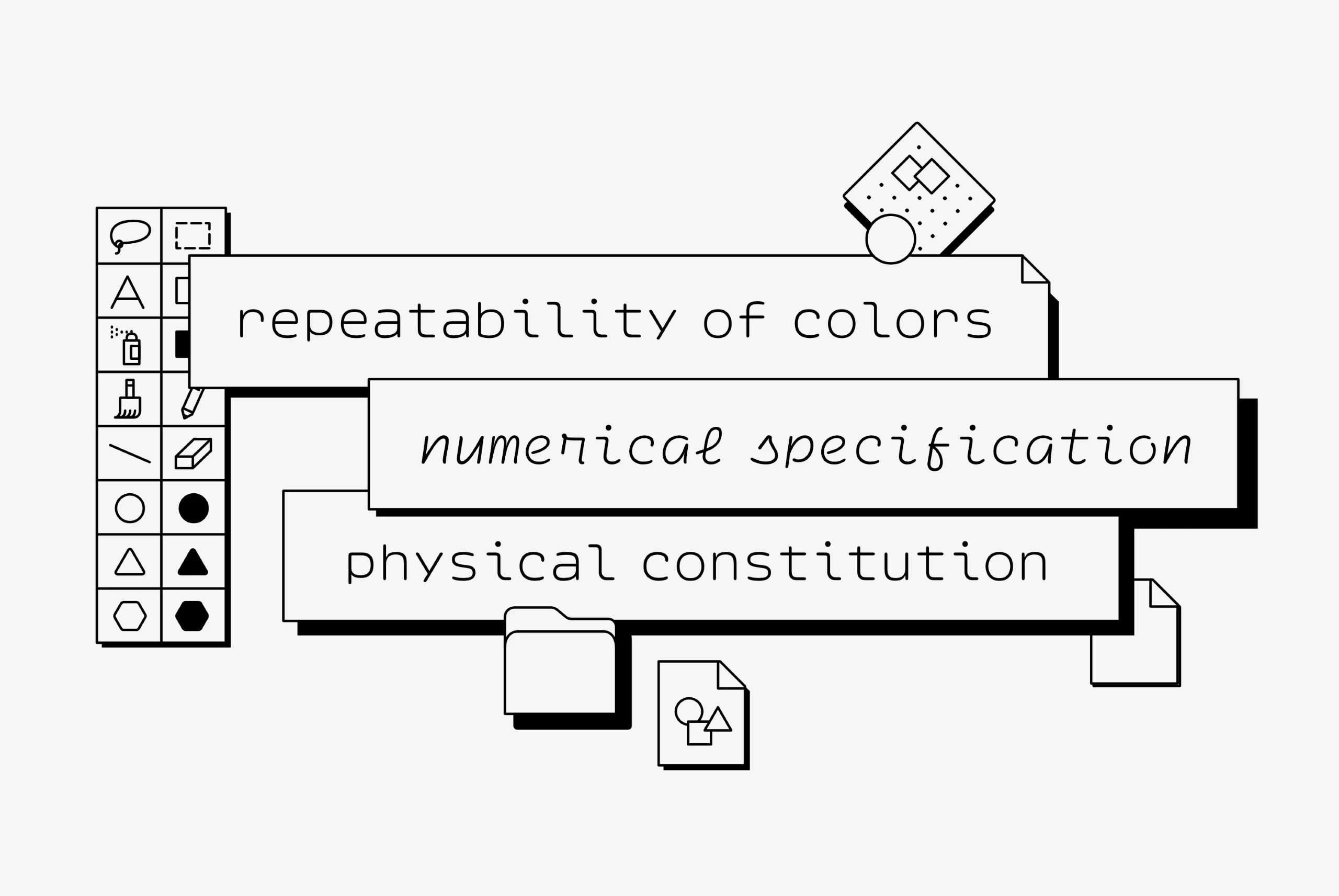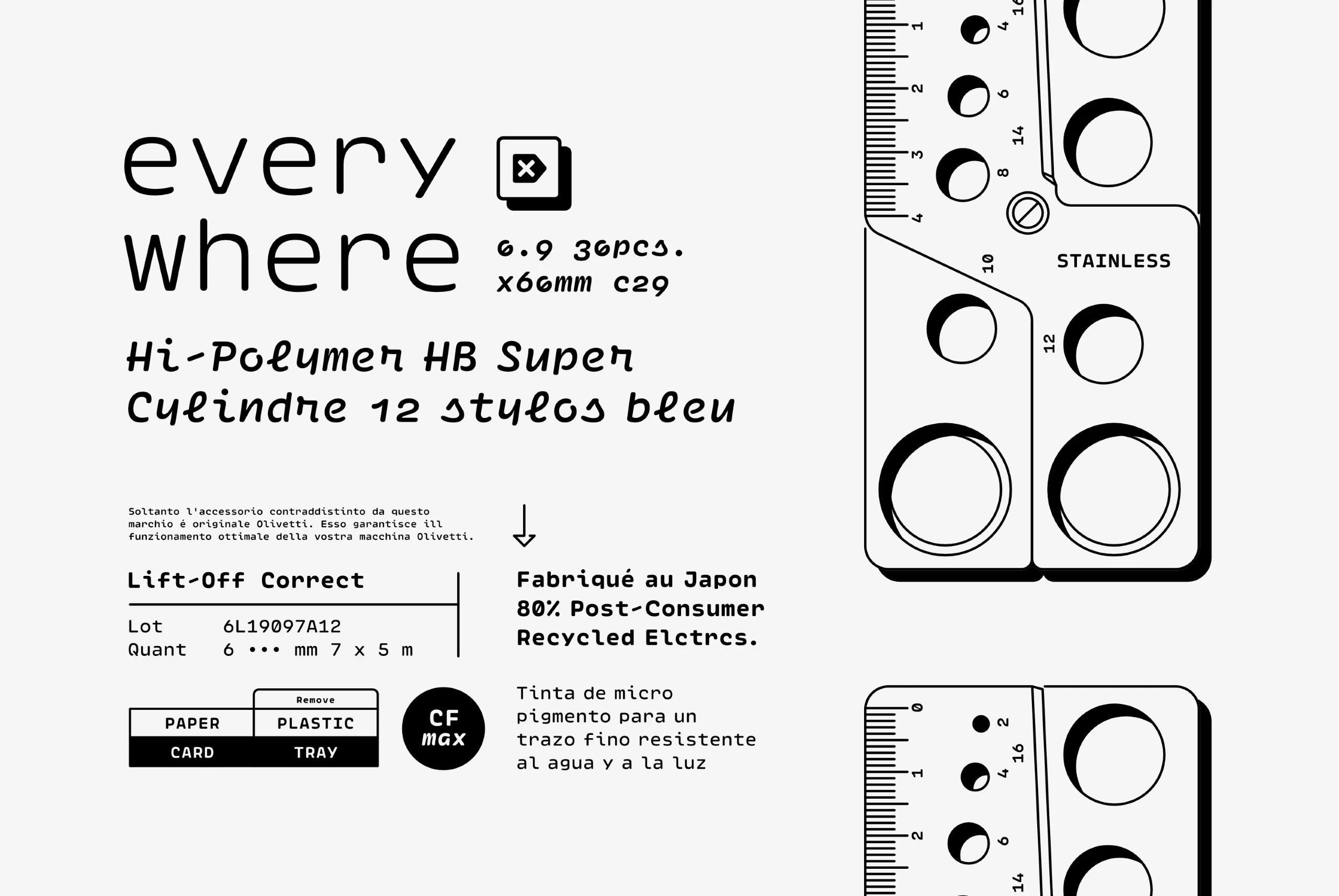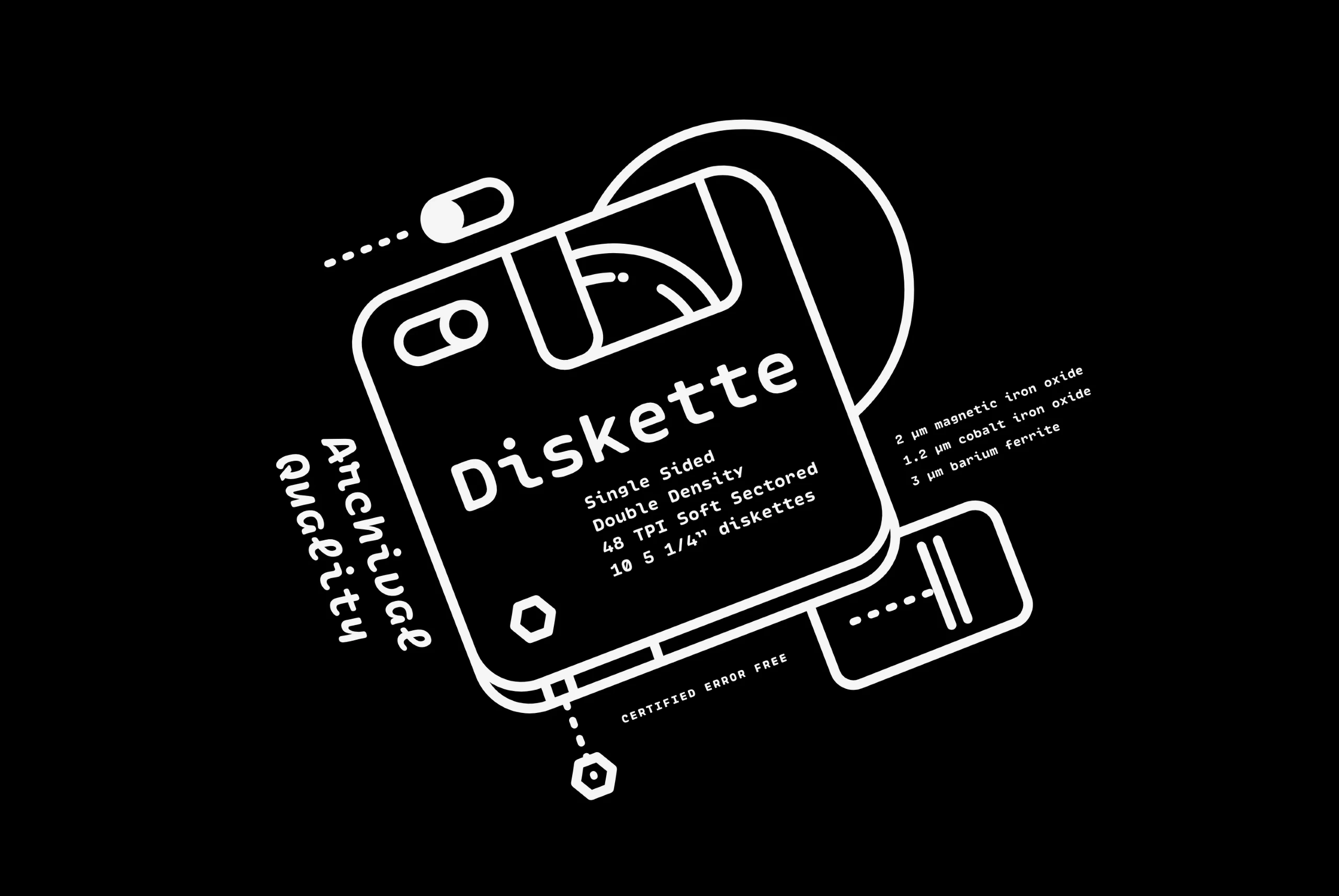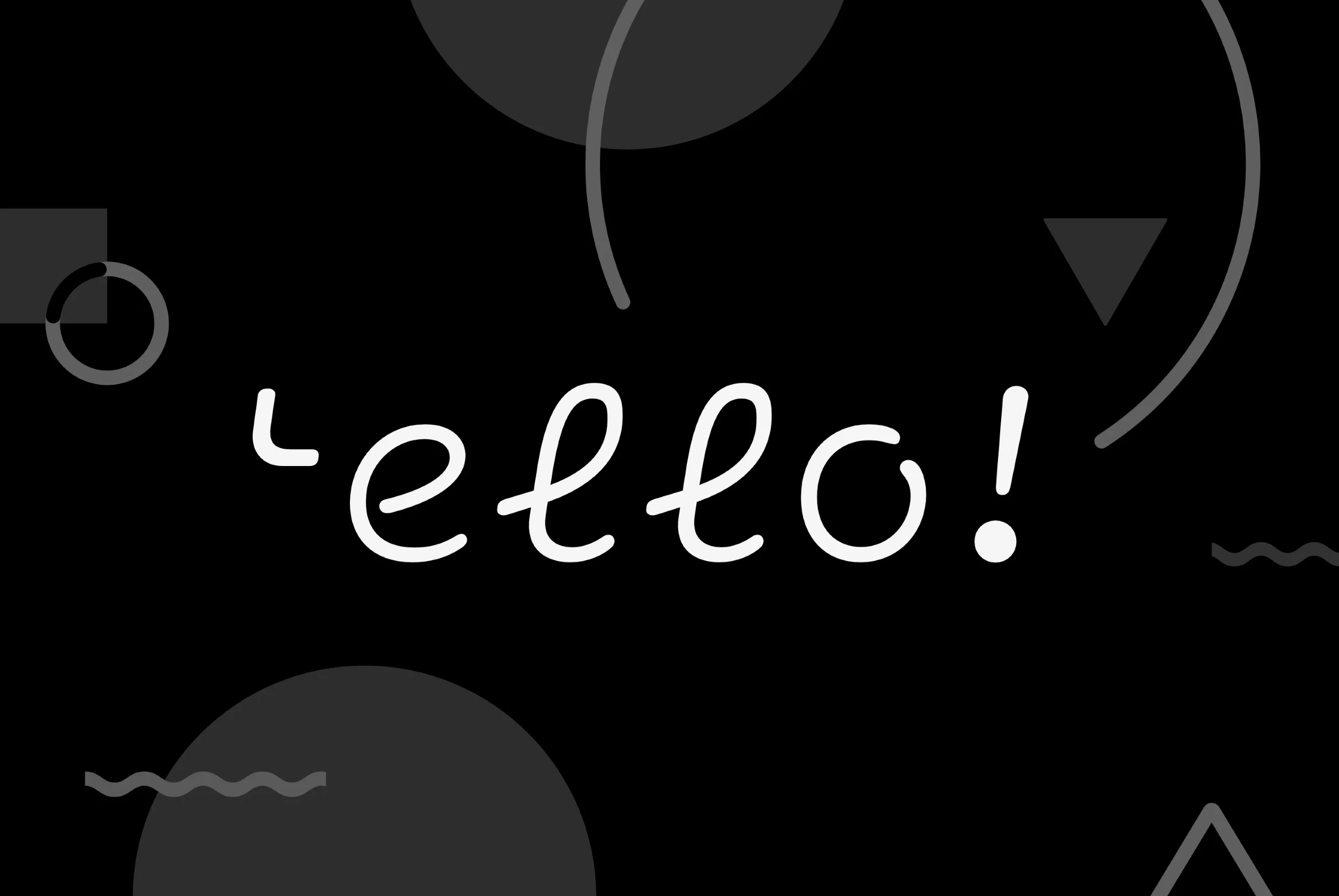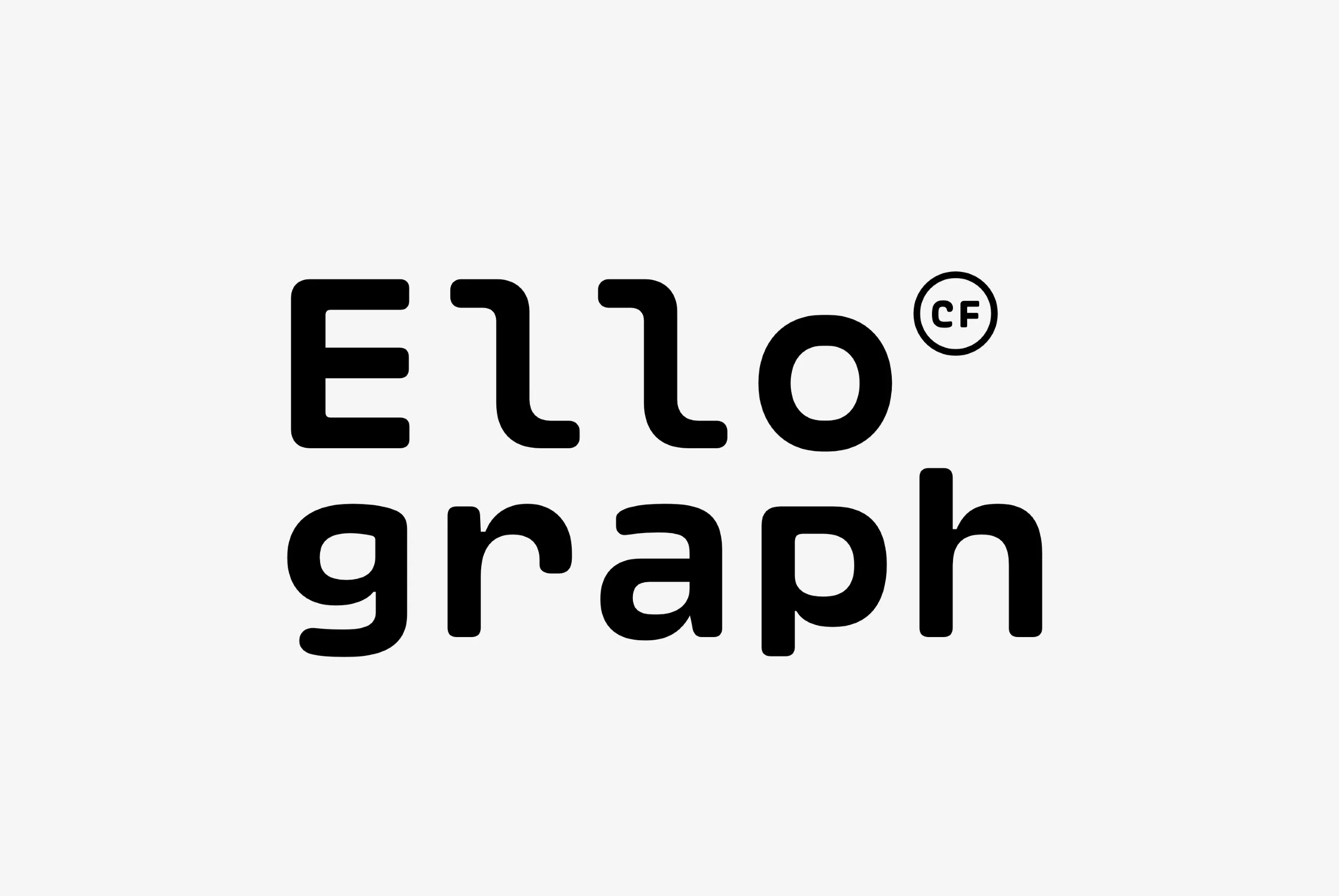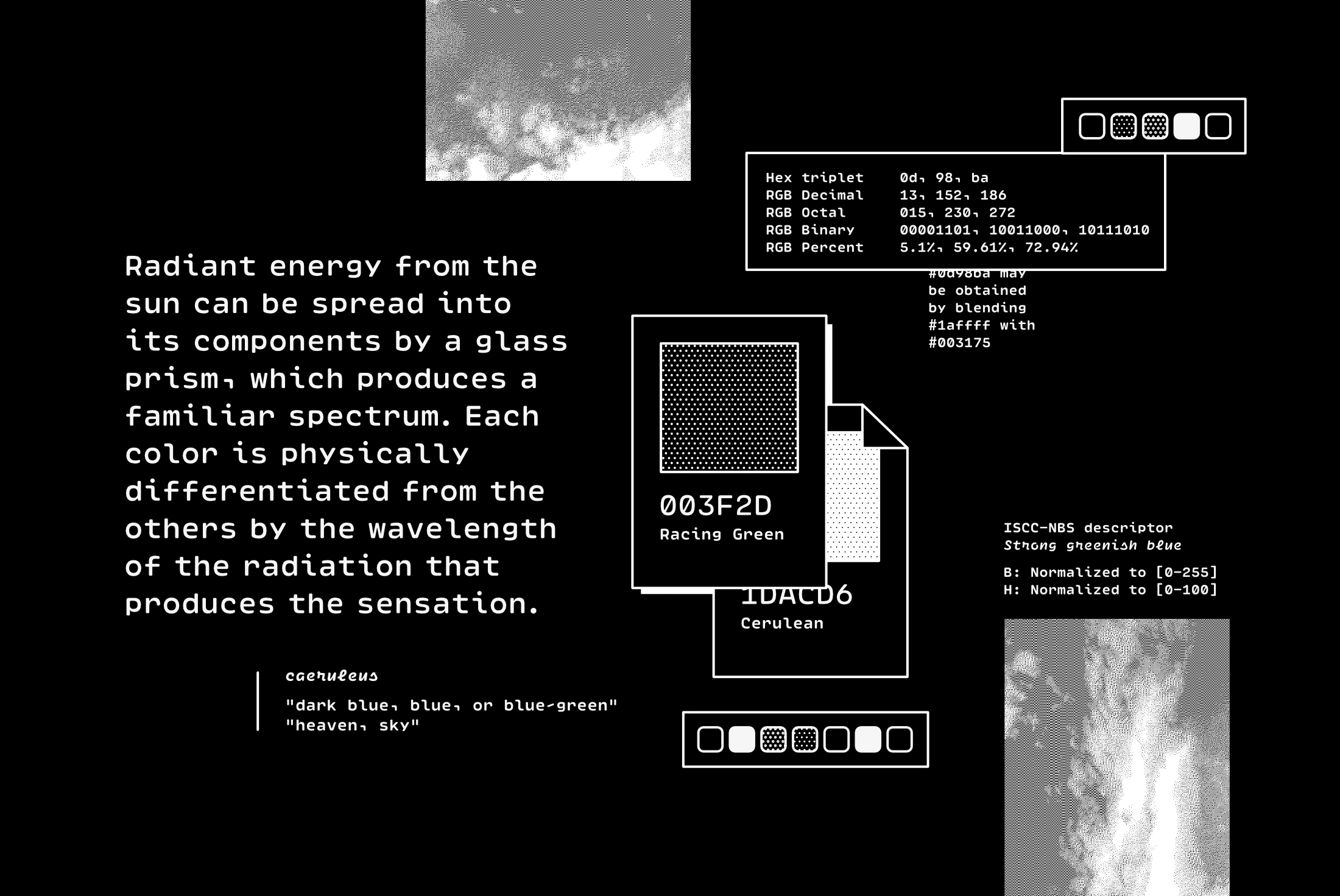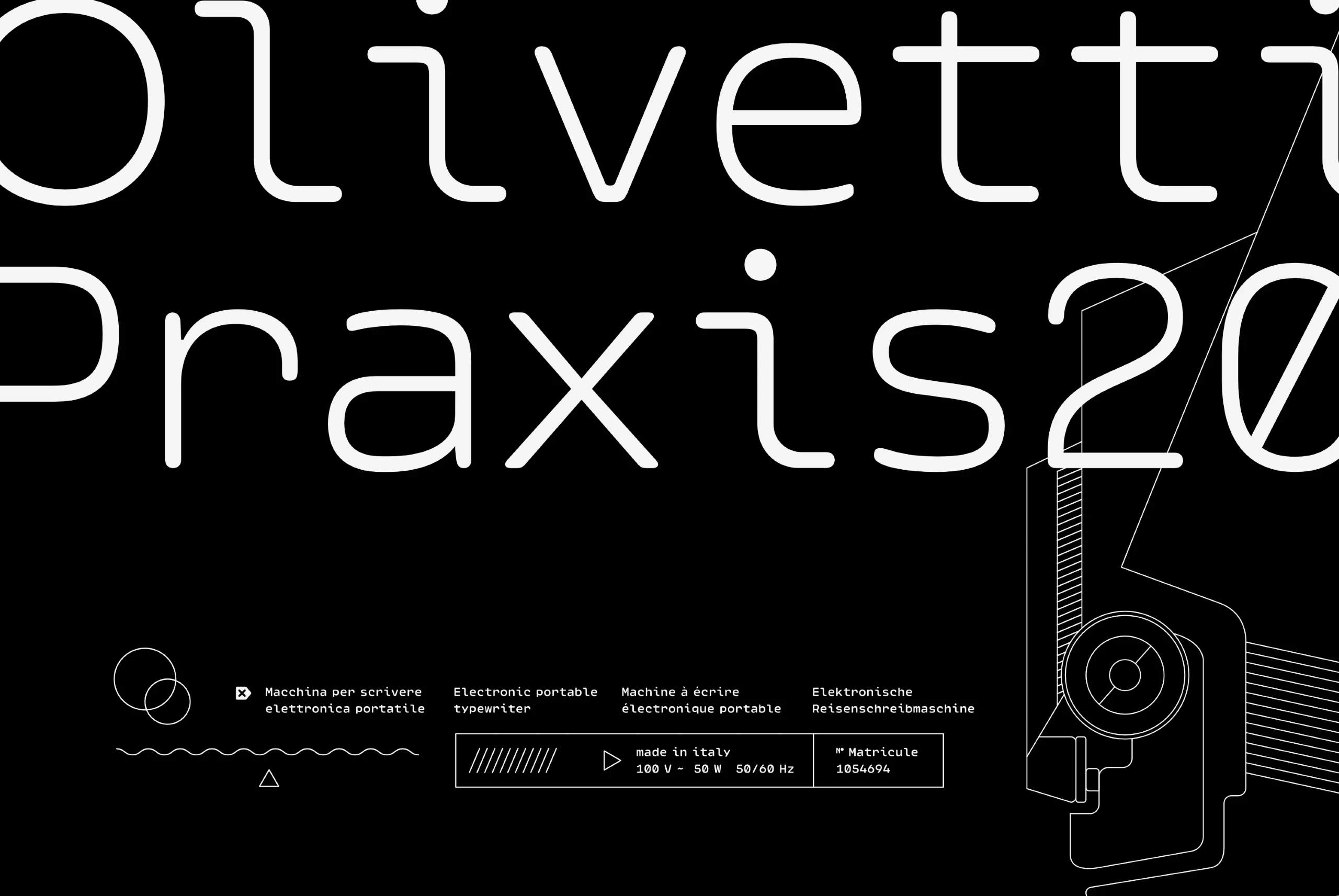
Ellograph
Ellograph CF is a cheerful monospaced sans with a soft, rounded construction and striking cursive italics. A generous x-height and short descenders allow for even, flowing lines of text. It is a beautiful choice for a coding font. But for designers who like to think beyond the expected, it is also charming in logos, headlines, brands, online, and print.
eight Weights in Latin & Vietnamese • Pinyin • Code Ligatures Script
Language support includes Catalan, Chinese Pinyin, Croatian, Czech, Danish, Dutch, English, Filipino, Finnish, French, Fula, German, Hungarian, Indonesian, Italian, Latvian, Malay, Maltese, Norwegian, Polish, Portuguese, Romanian, Slovak, Slovenian, Spanish, Swedish, Turkish, Vietnamese